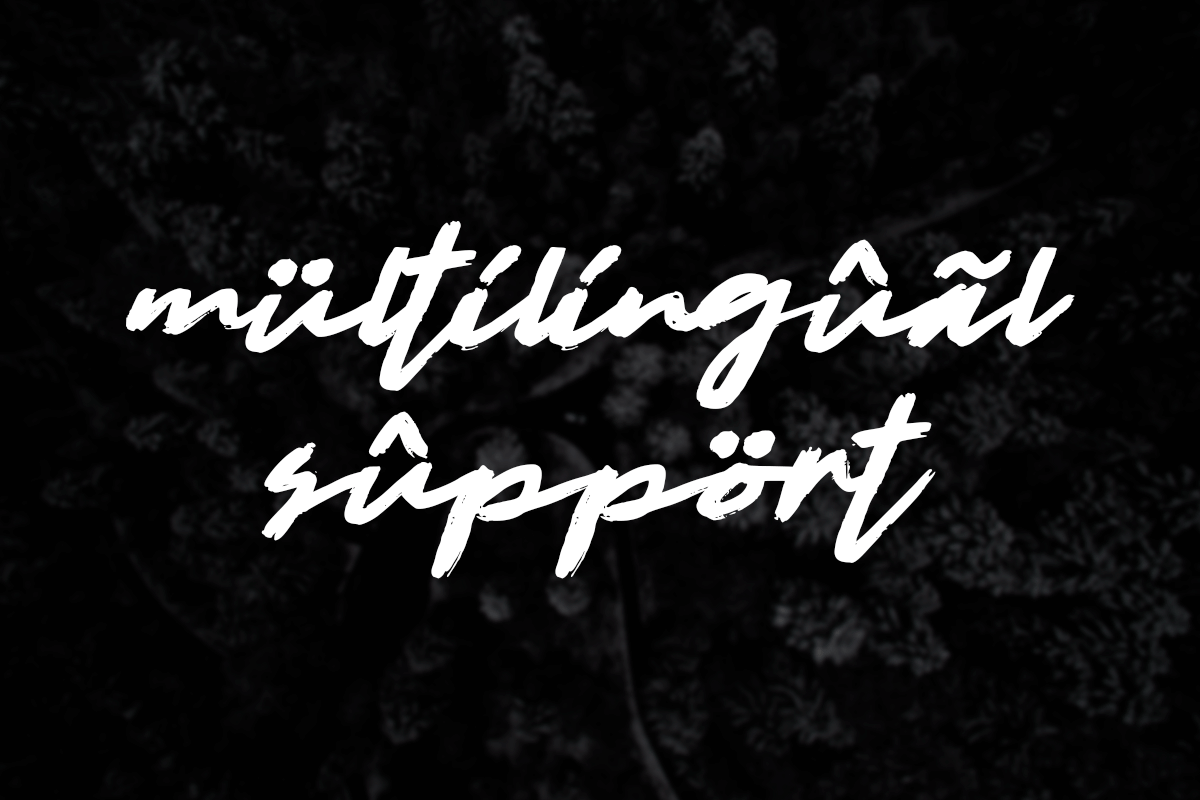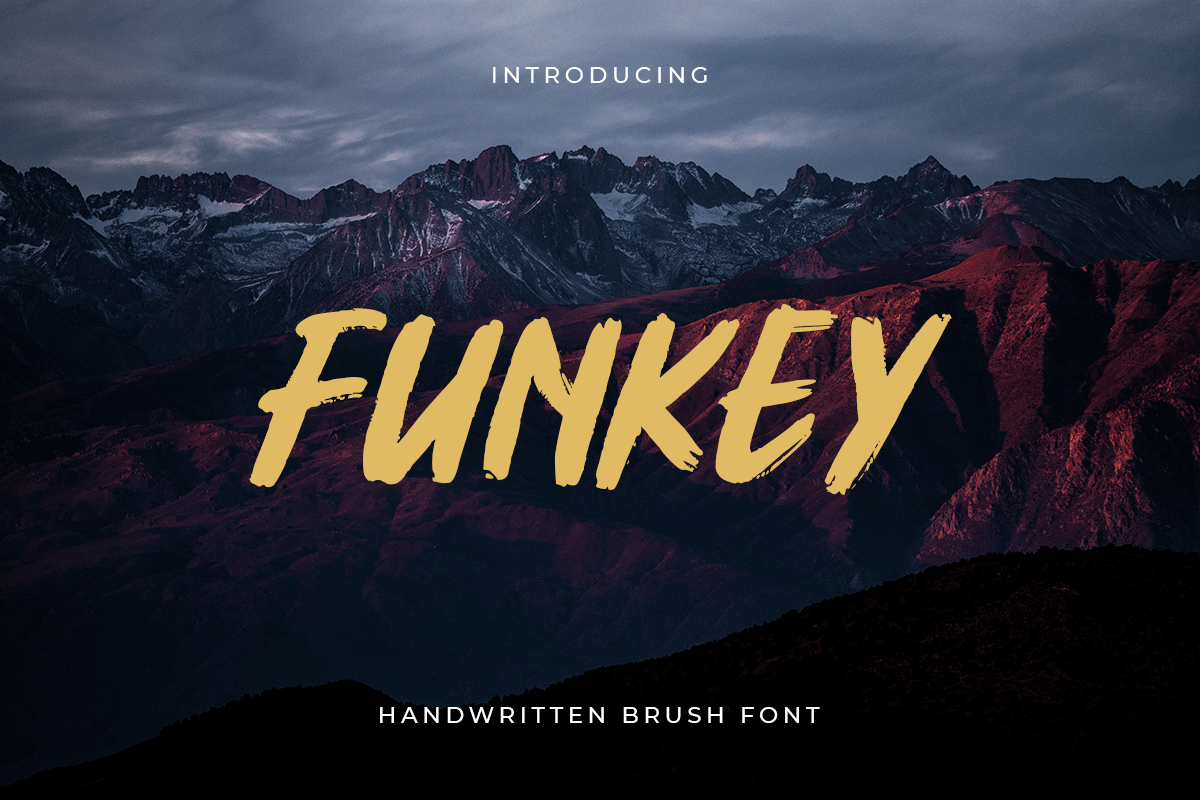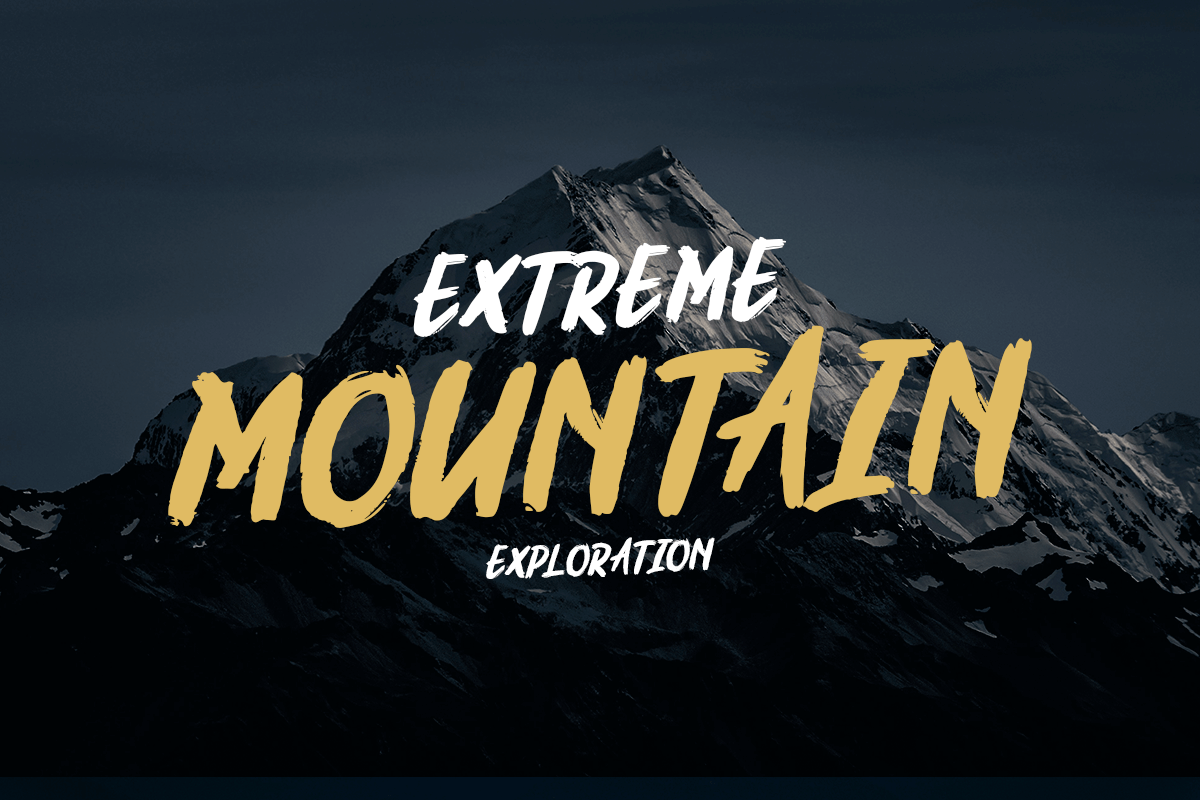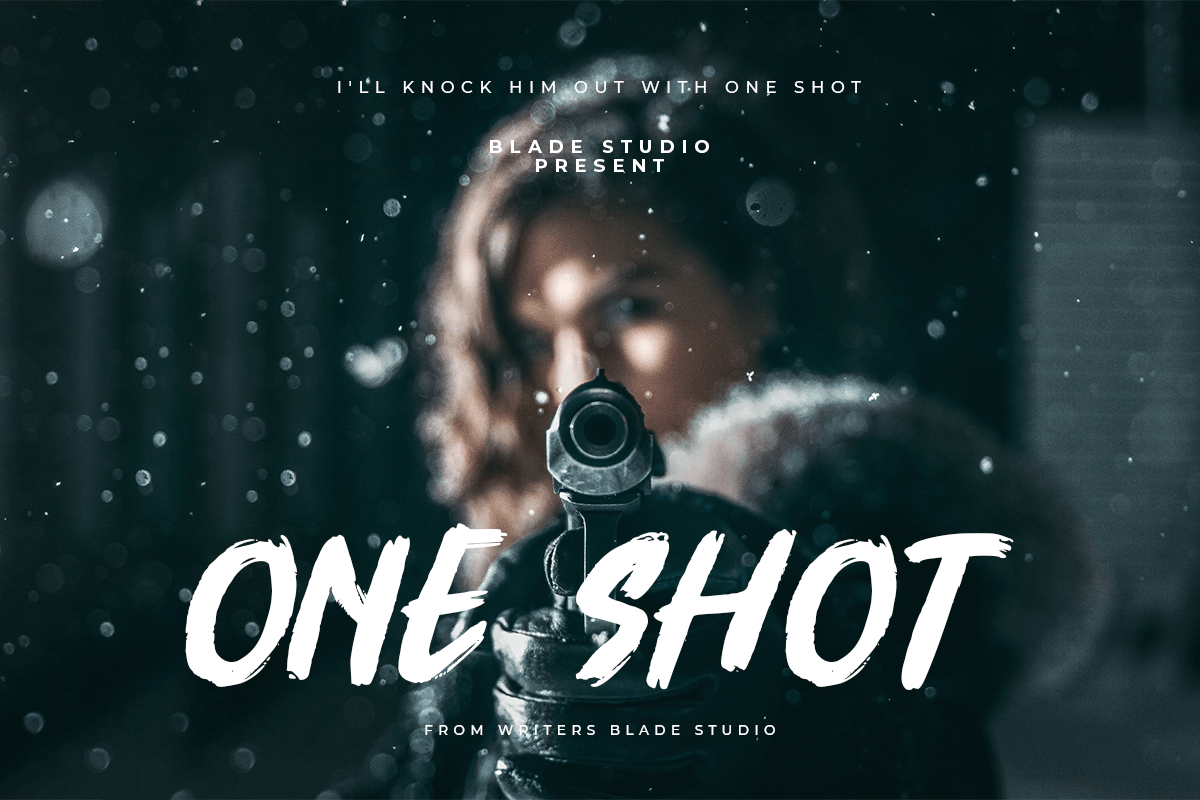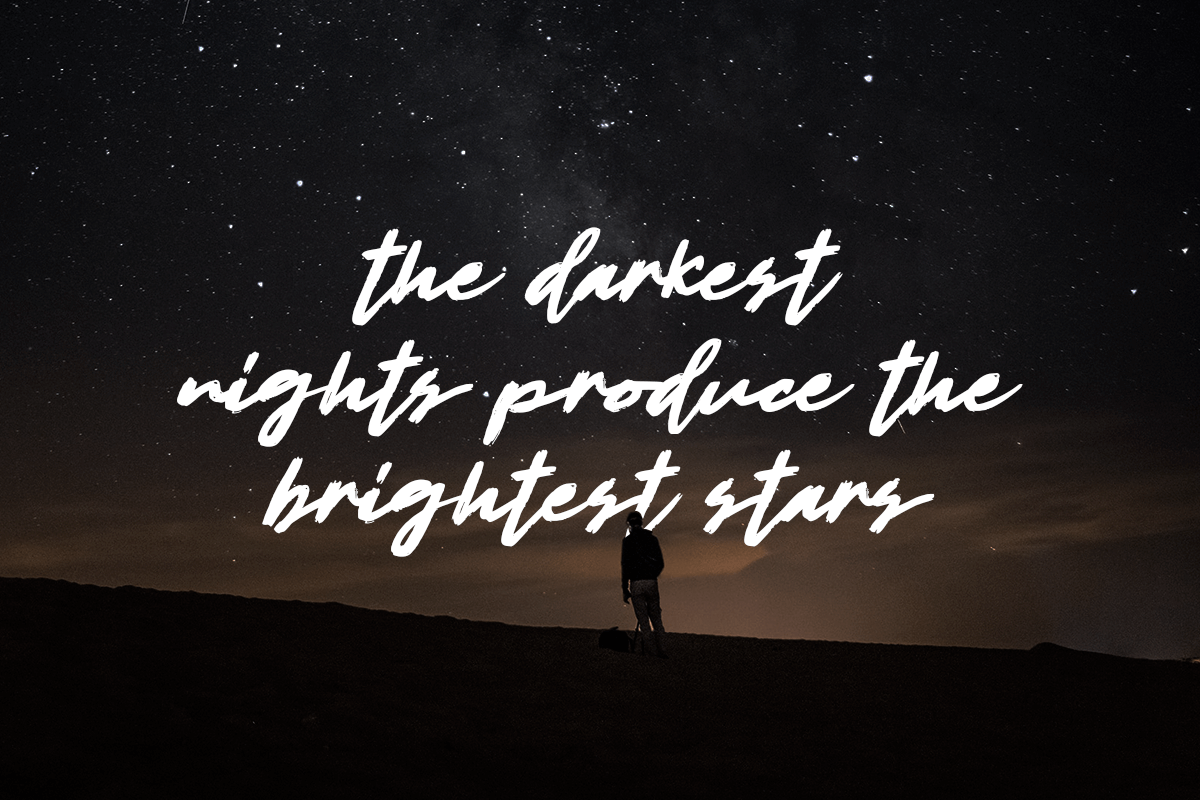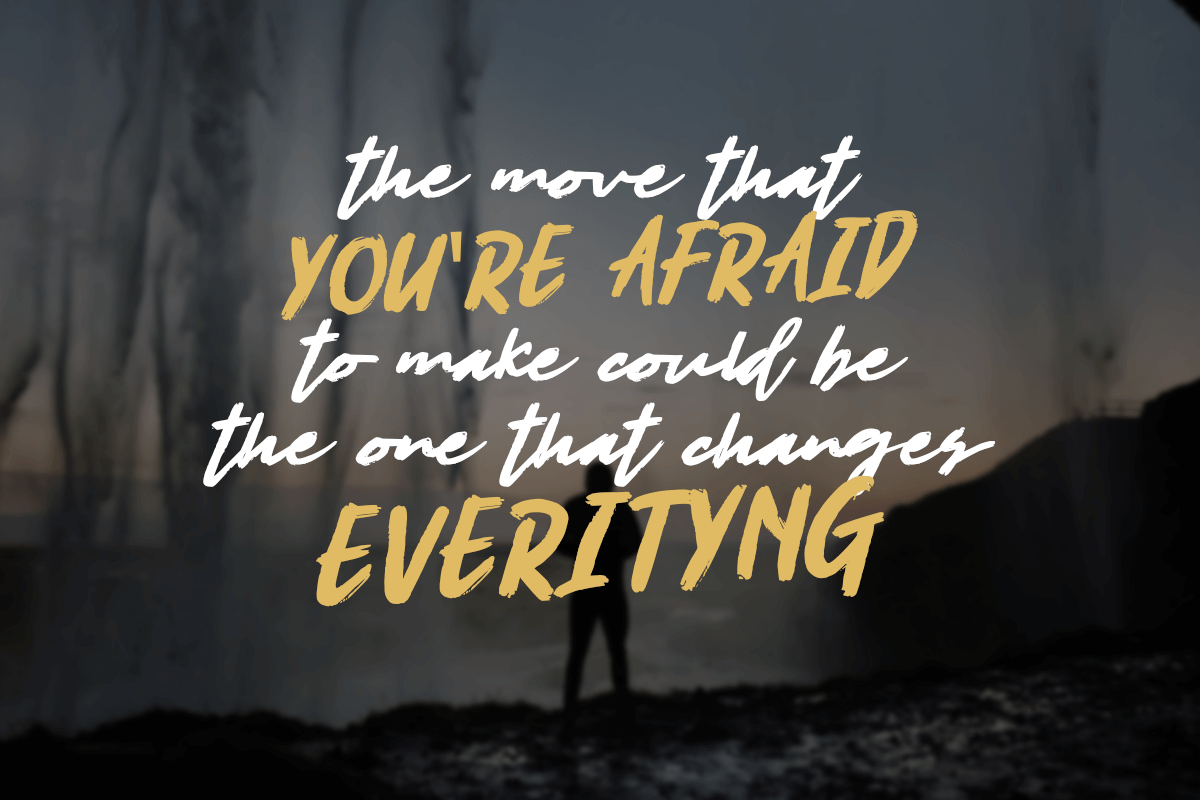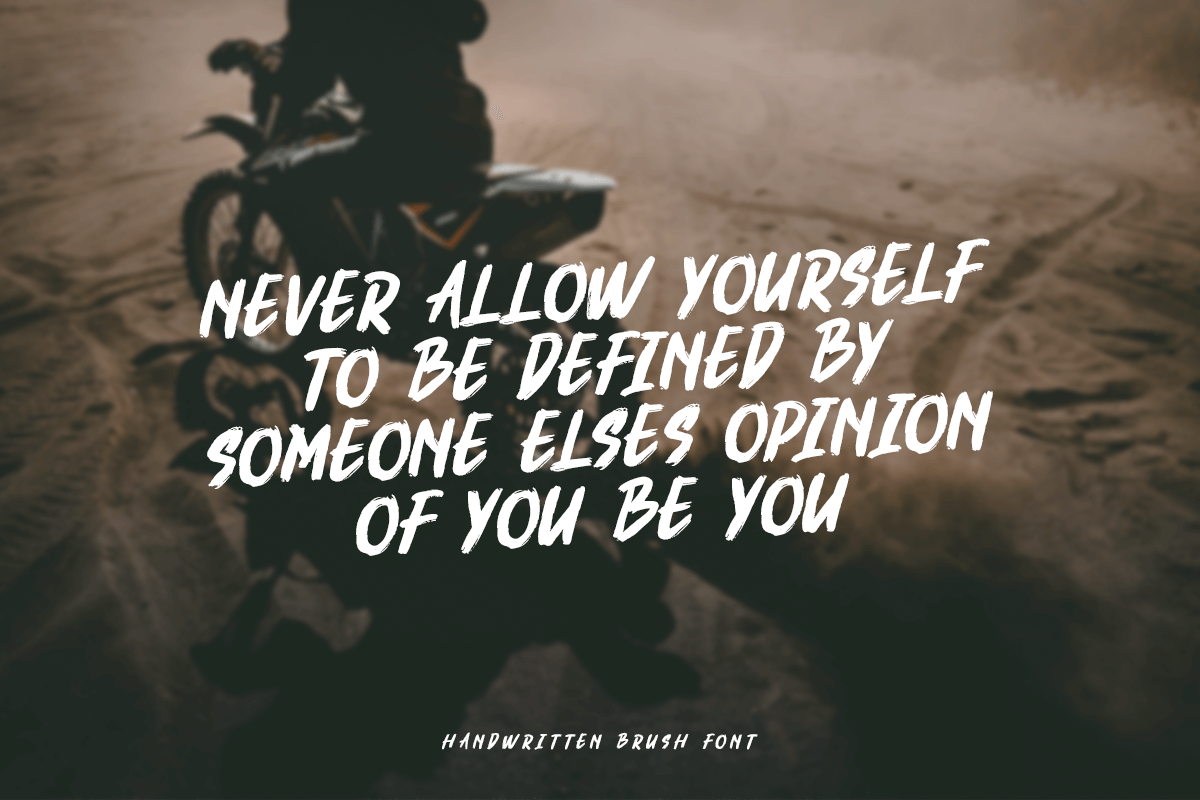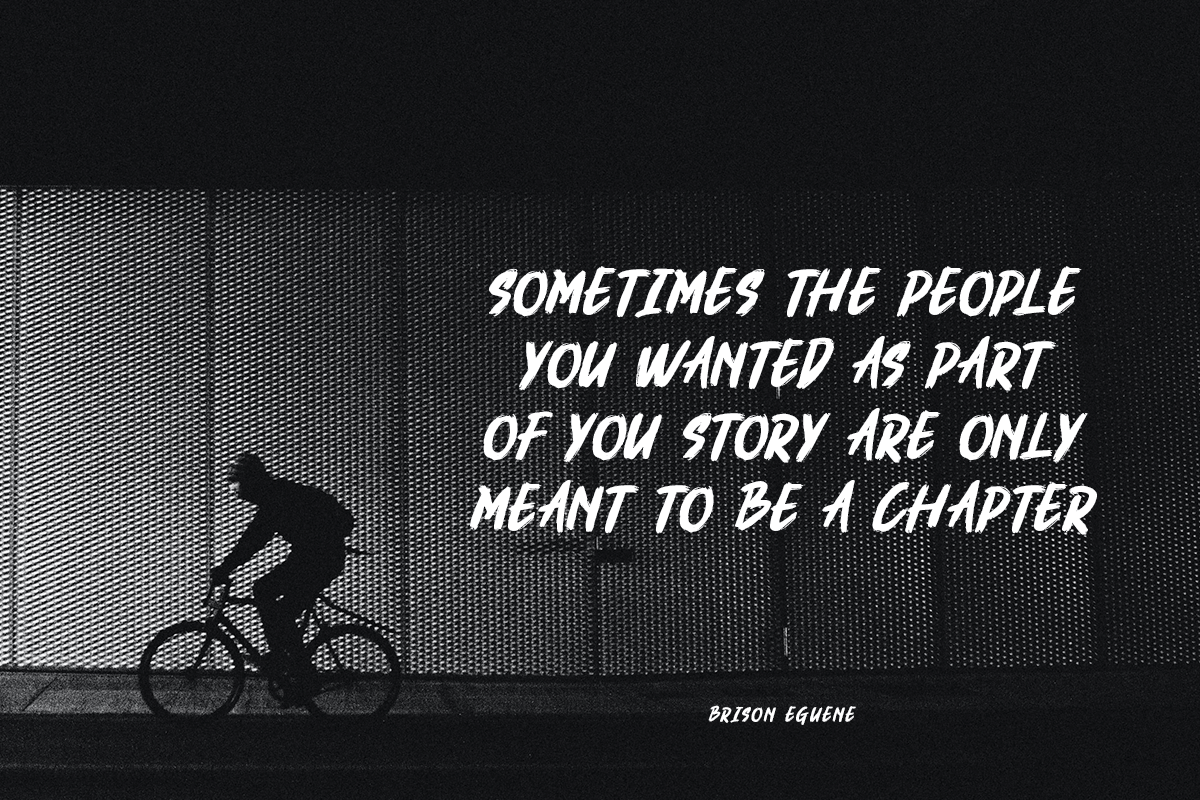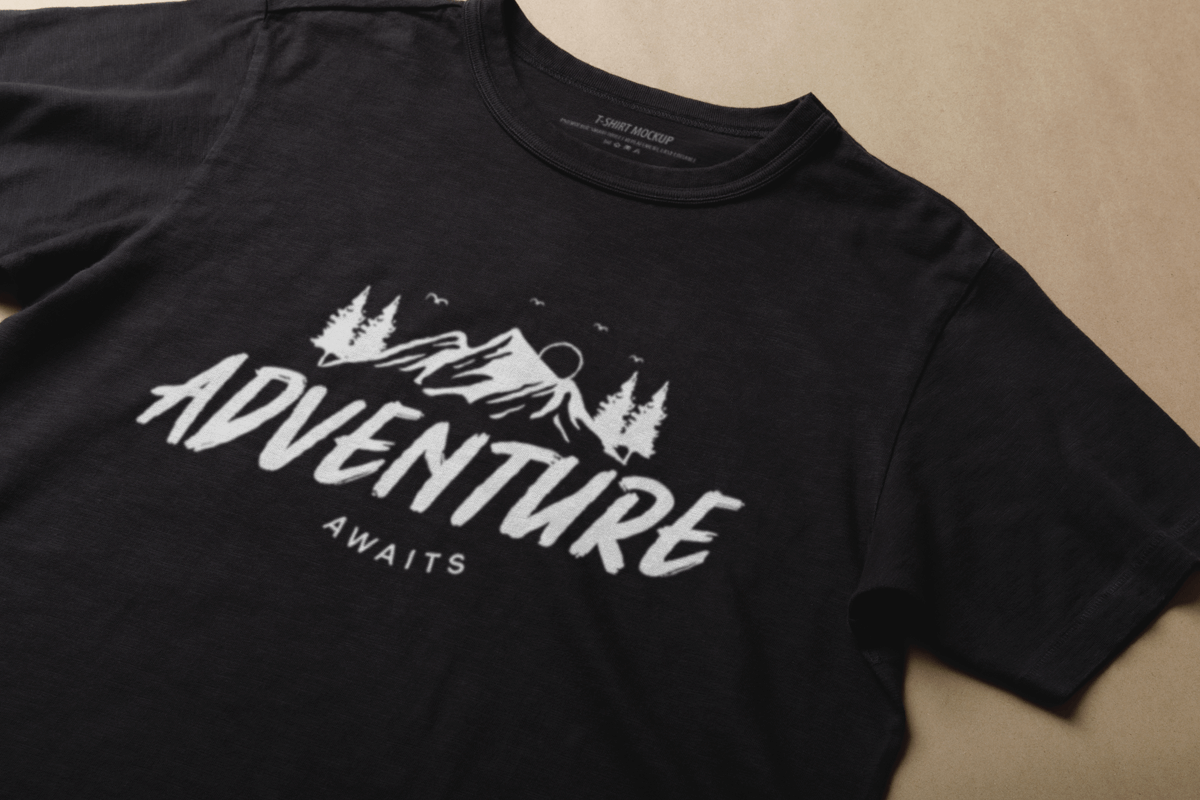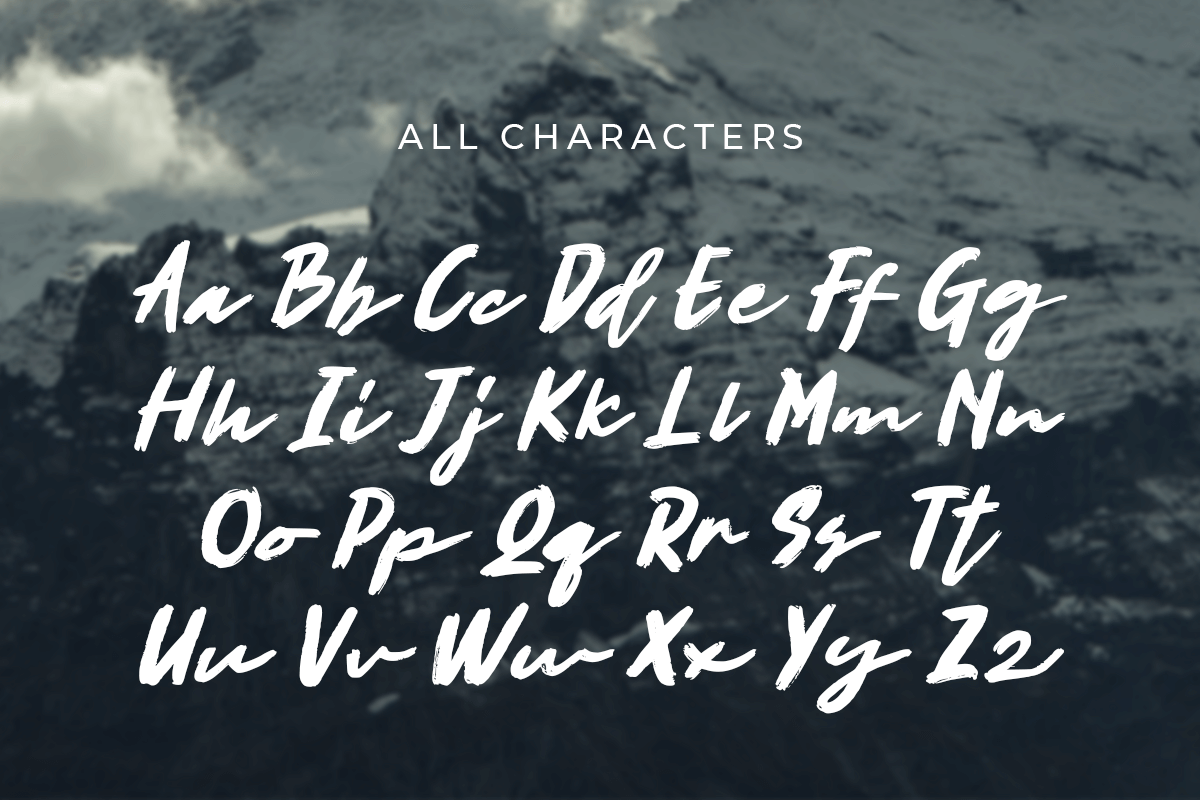
Funkey
-Handwritten Brush Font
Funkey
Funkey is A Handwritten Brush Font with cute and beauty style and so charming. This font specially crafted for your branding, quotes design projects or cute logo, unique, modern for any designs such as print, merchandise, and so many more with easy to use but unique results are so playful.
Enjoy to Design any your needs with cute and playful feel.